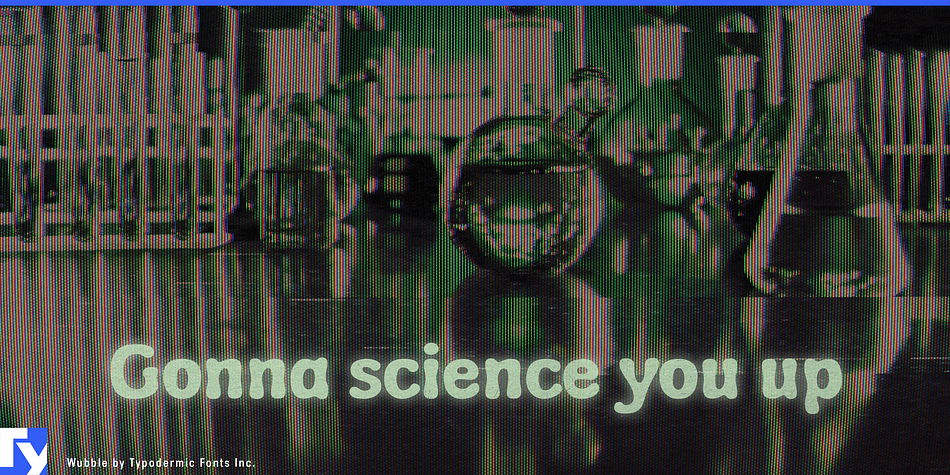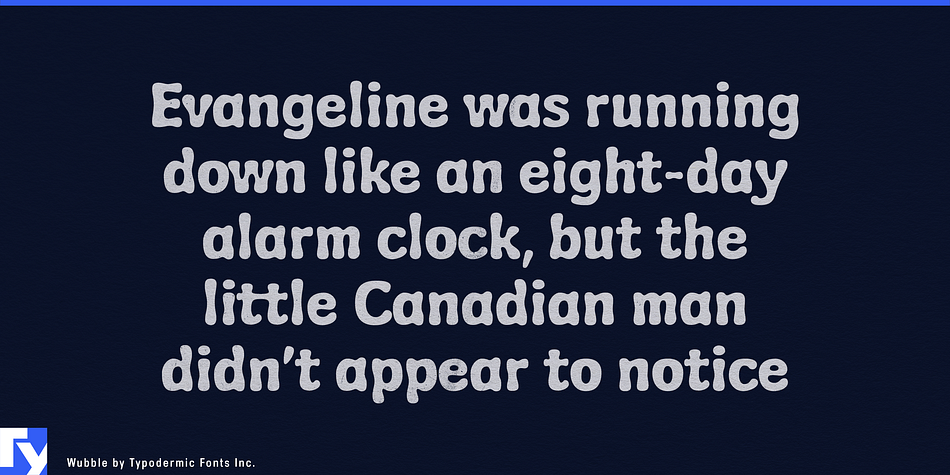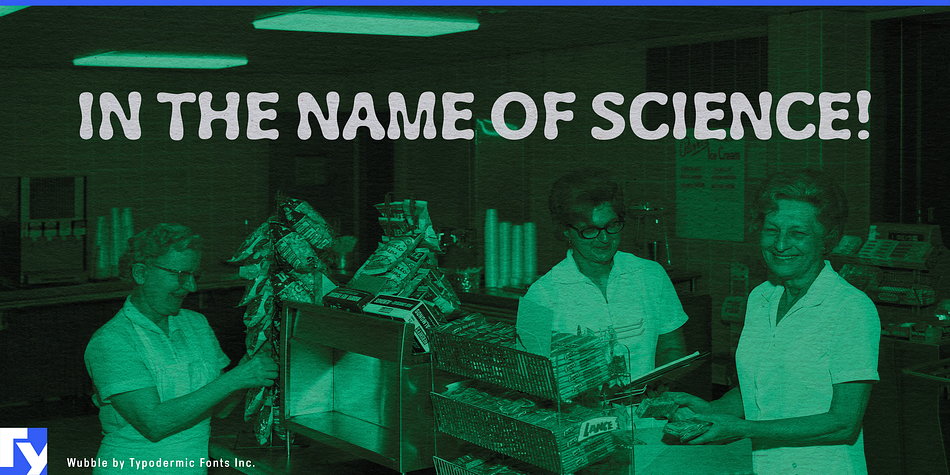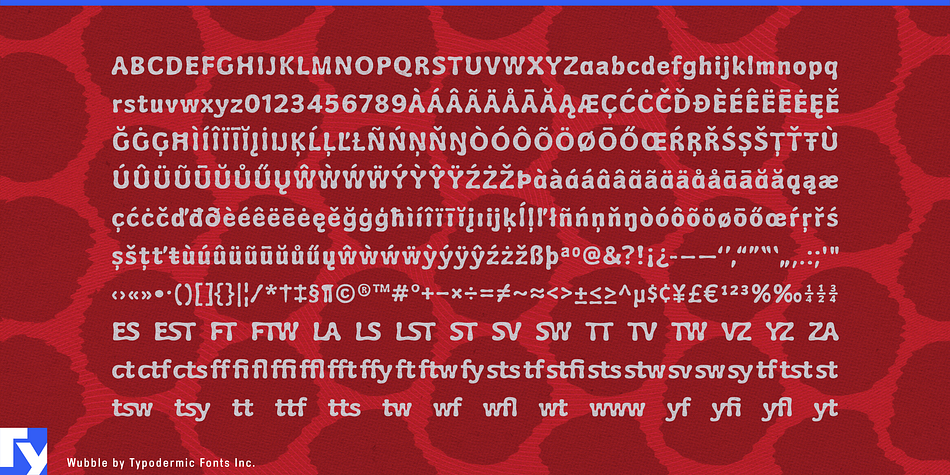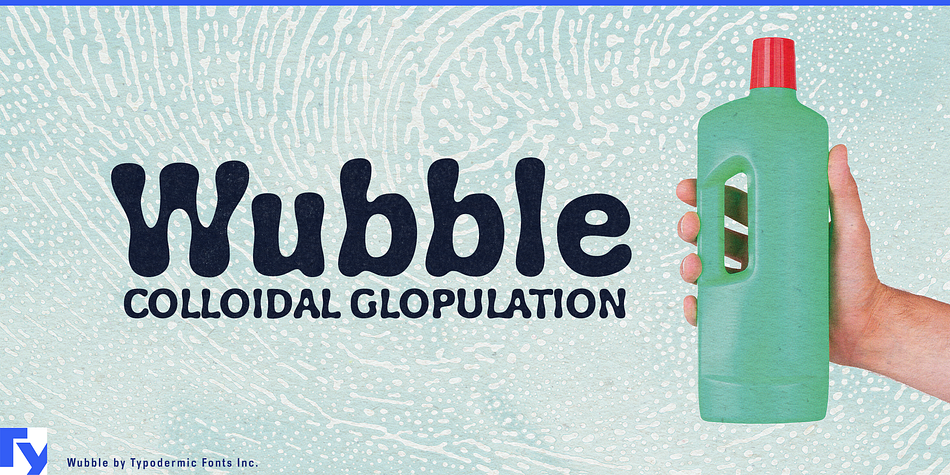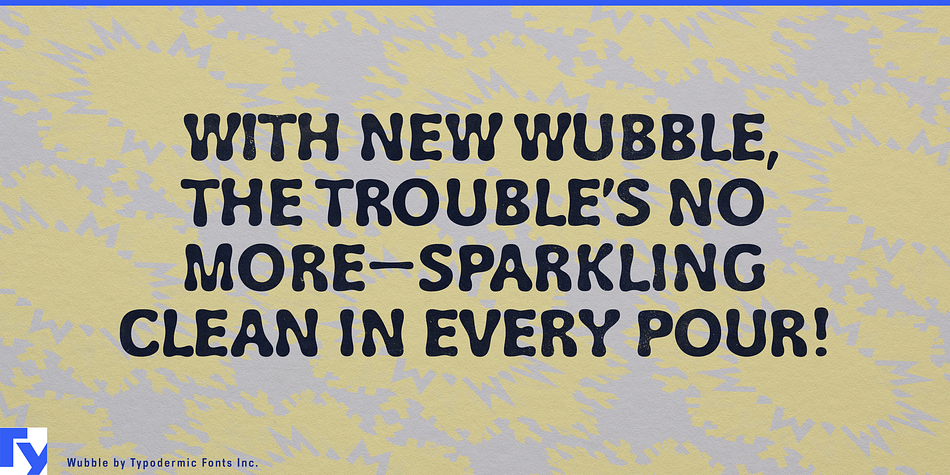
Wubble is a display font published by Typodermic Fonts Inc.
Welcome to Wubble labs where the future of fonts is today. We have something new and very exciting to show you; Wubble, the finest liquid font we’ve ever produced. This font is the result of years of meticulous research to duplicate the precise characteristics of colloidal glopulation. In layman’s terms: it looks like puddles of water.